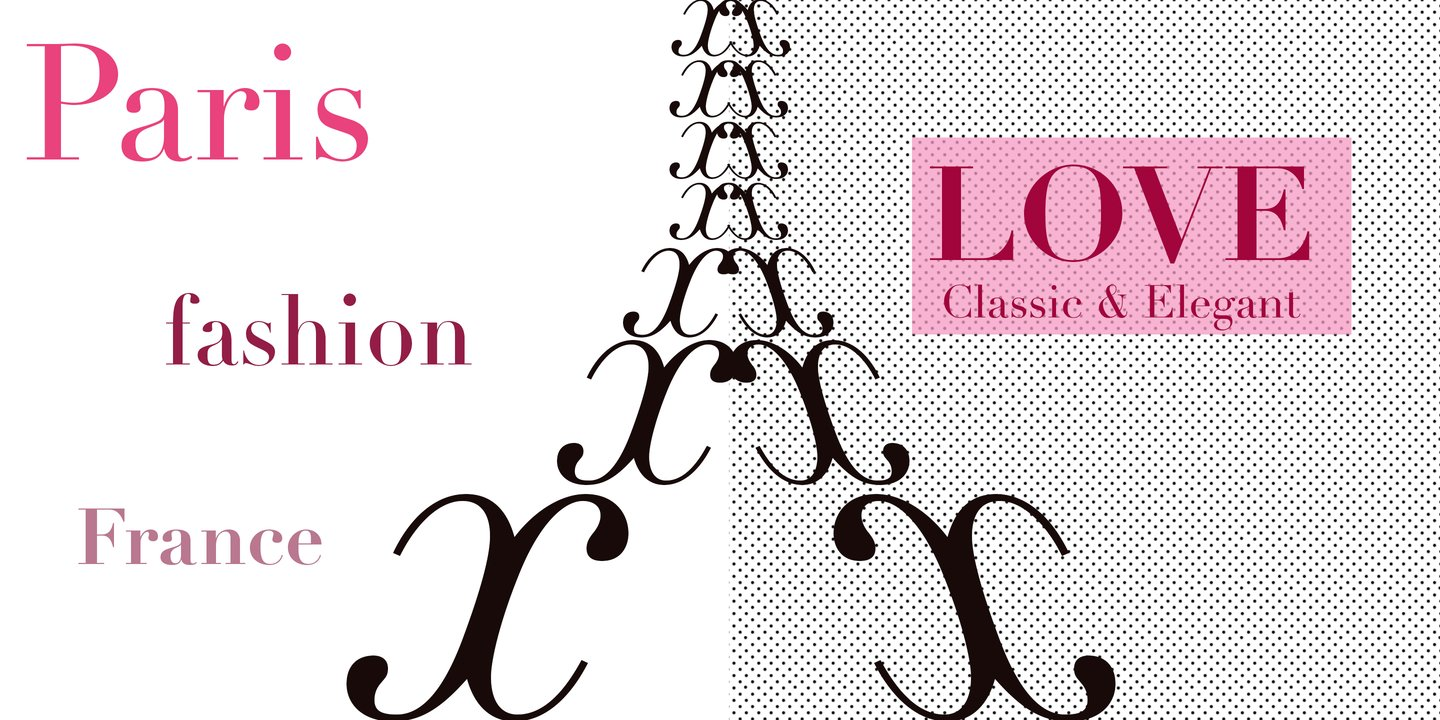
Didot vs Serifa
Didot and Serifa are both serif typefaces from different design traditions. Where Didot leans didone, high contrast, Serifa brings slab serif, geometric. Compare which suits your Display project.
Typography for fashion brands, style publications, and luxury apparel. Fashion f...
Recommended: Didot
- didone, high contrast design character
- Suited for Fashion and Editorial
- From linotype
Consider: Serifa
- slab serif, geometric design character
- Suited for Corporate and Signage
- From linotype